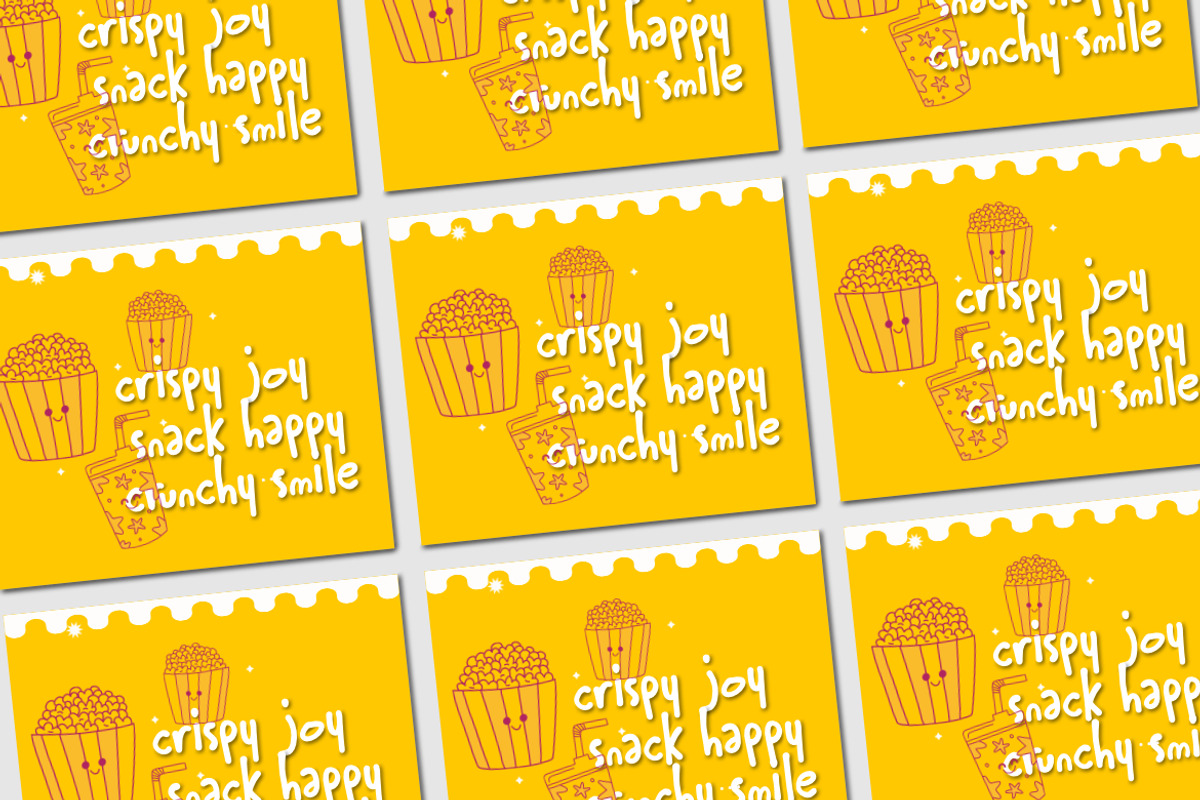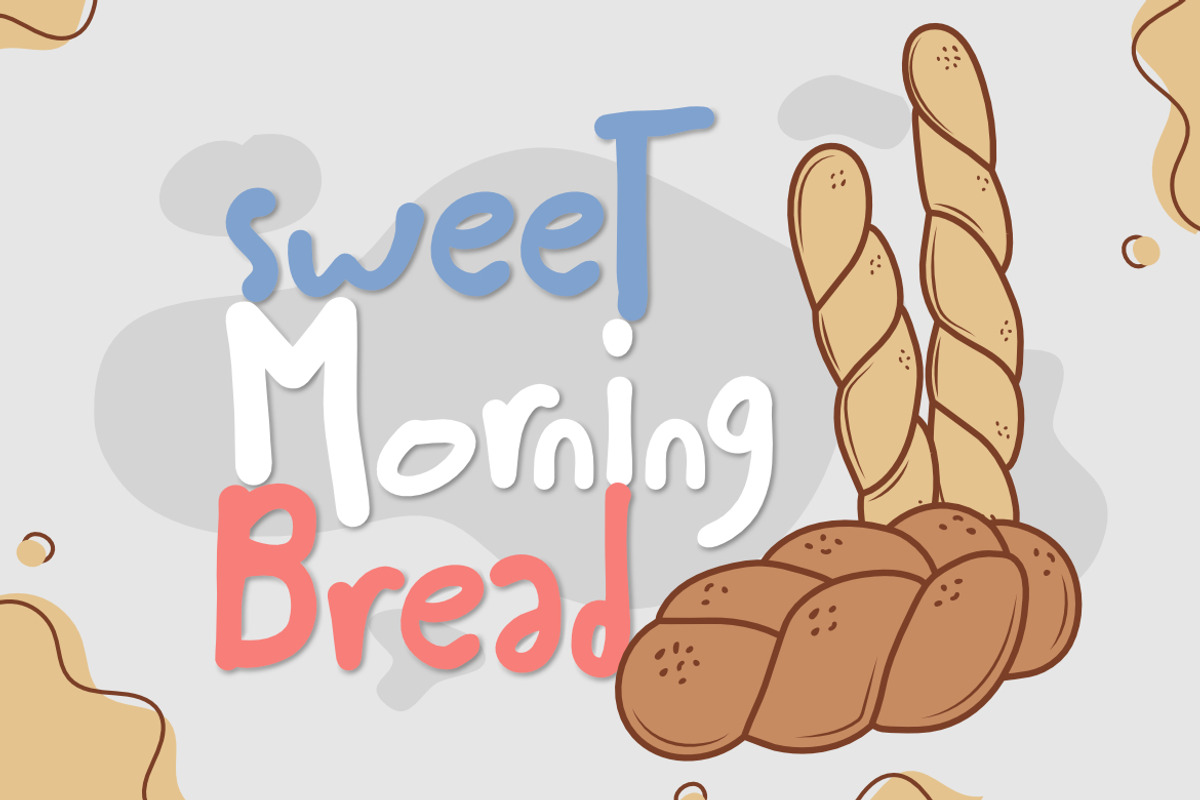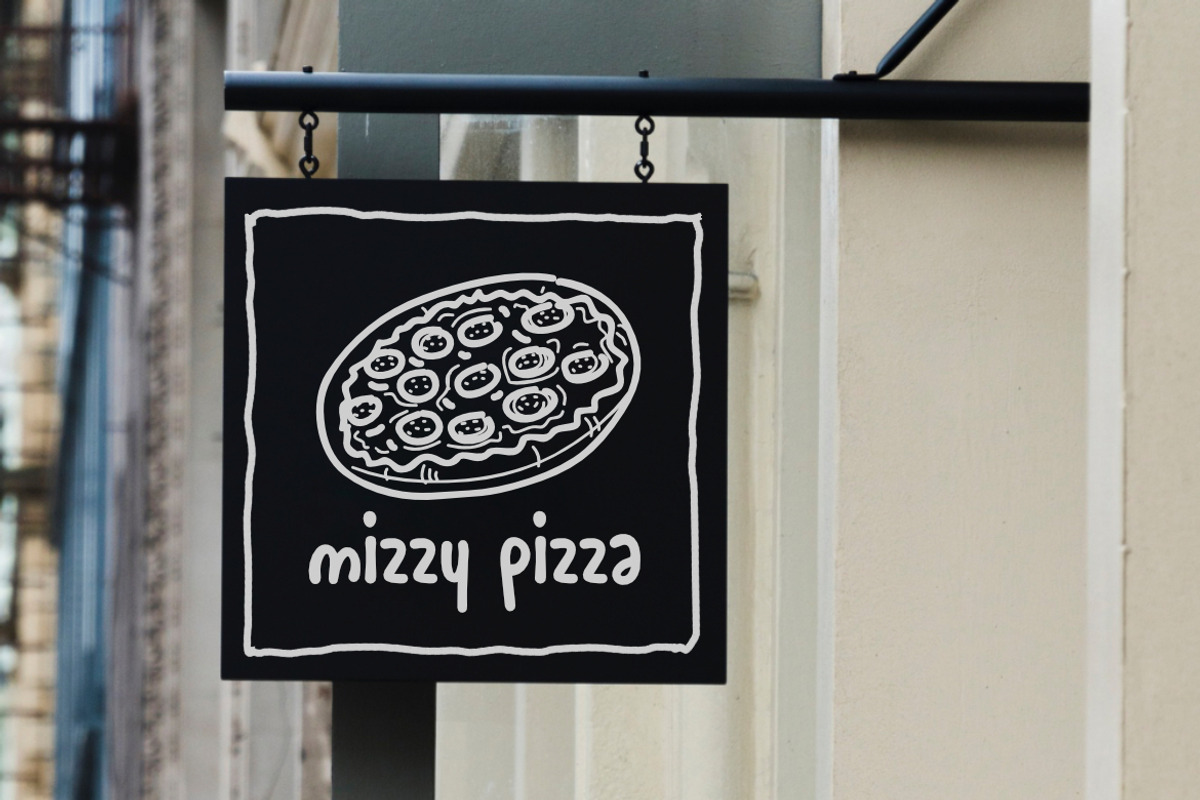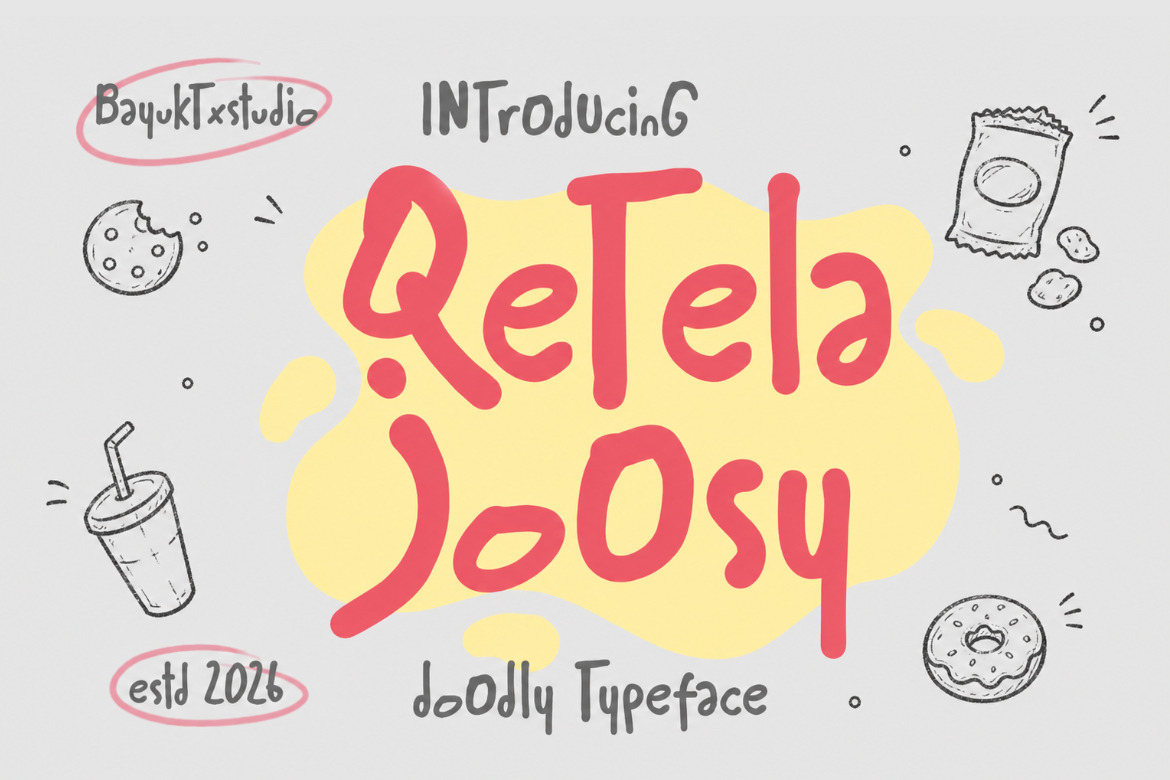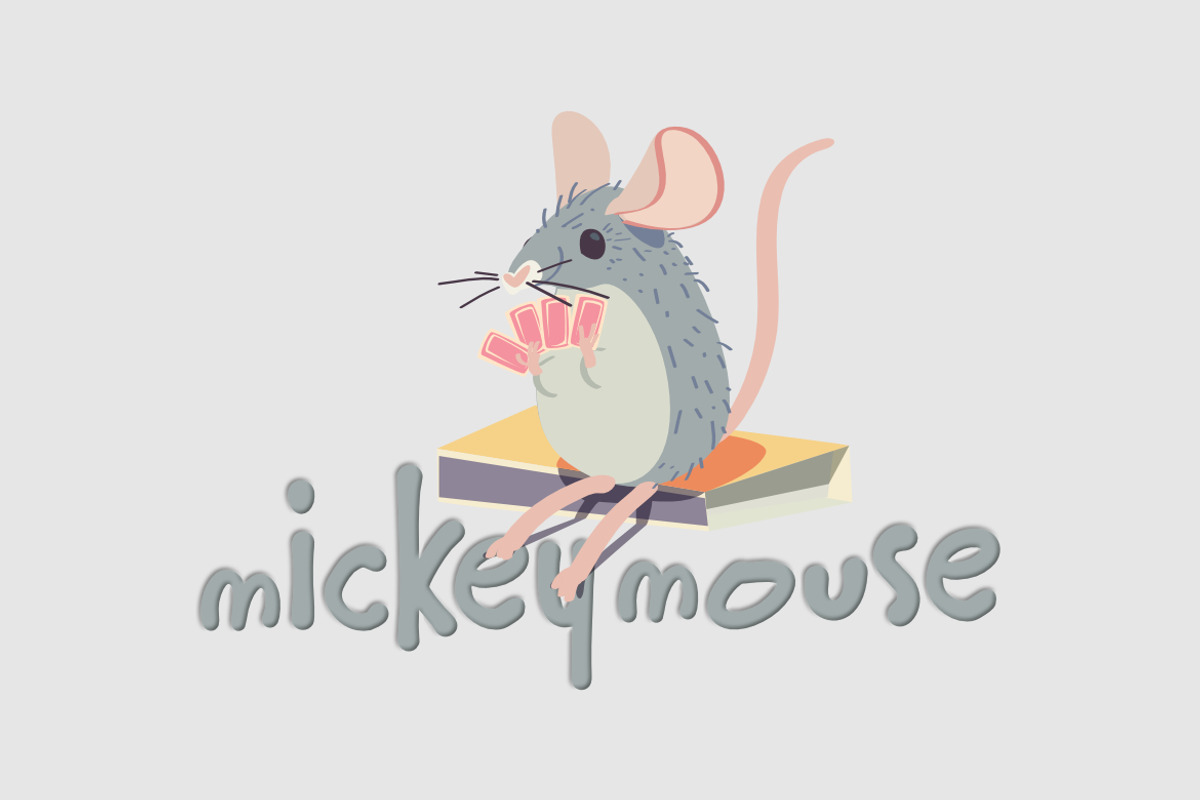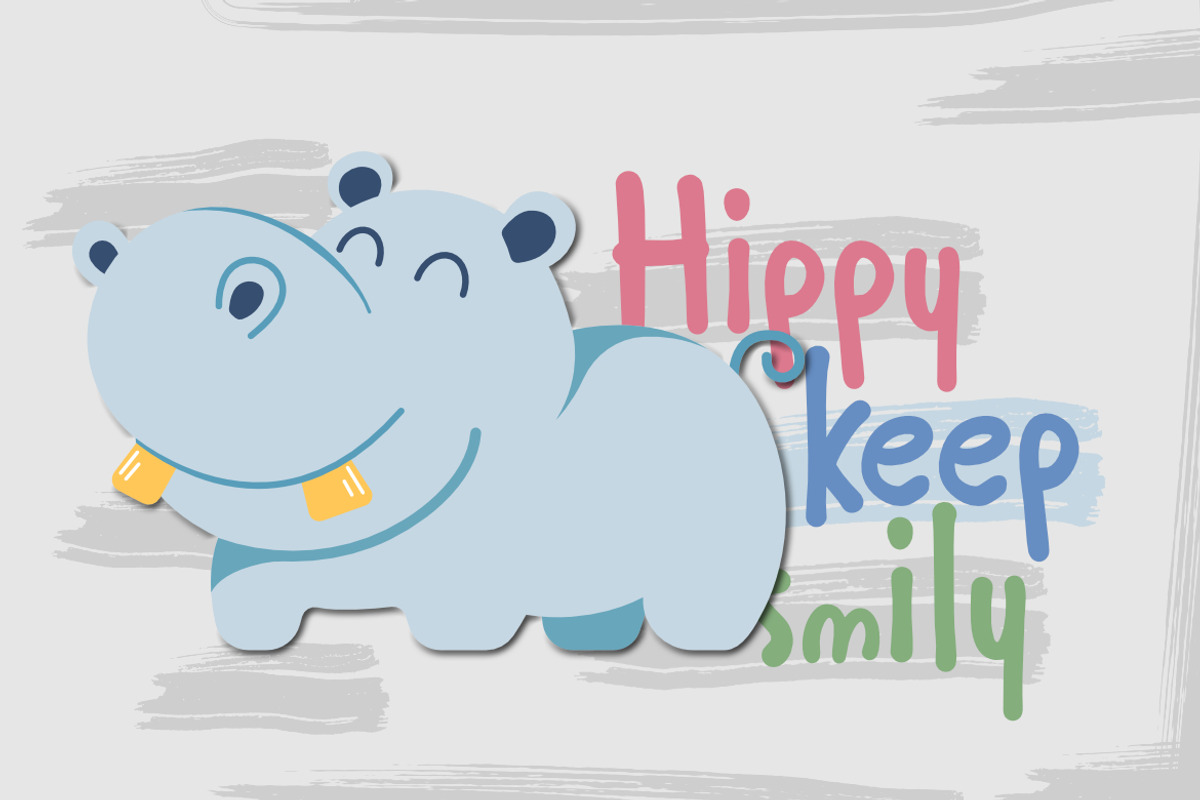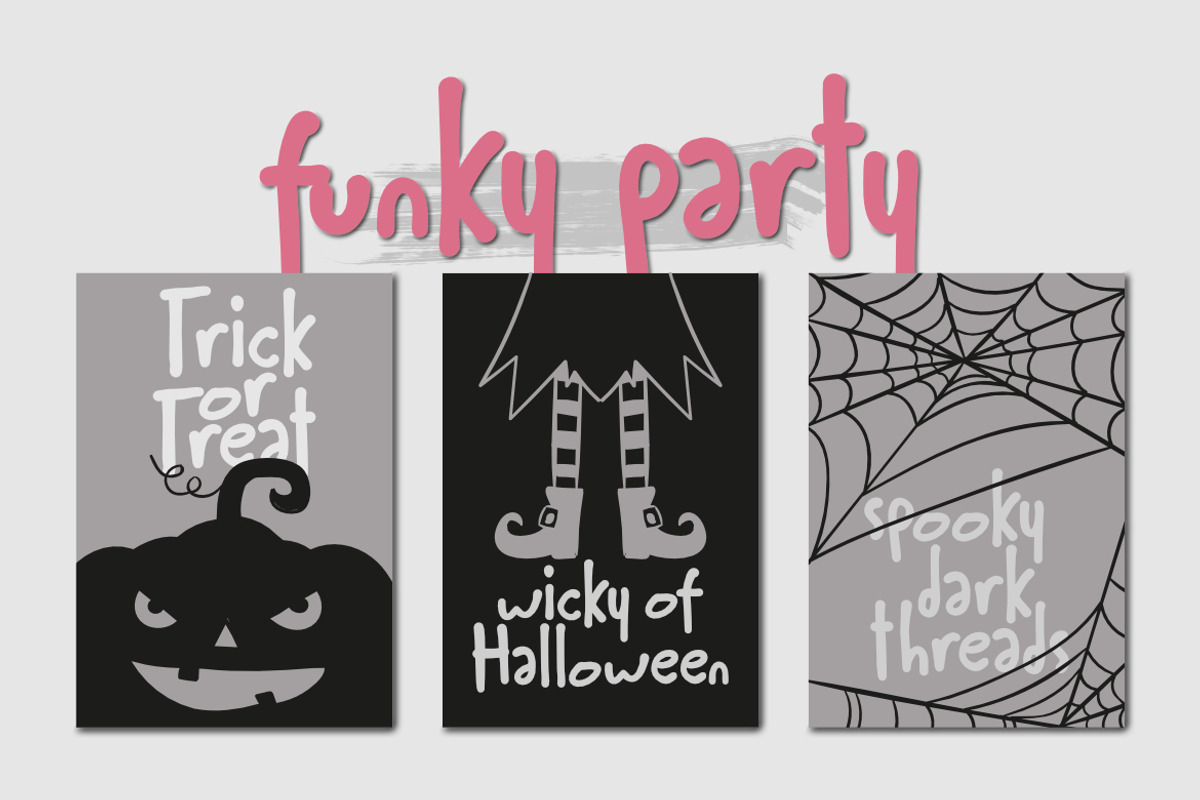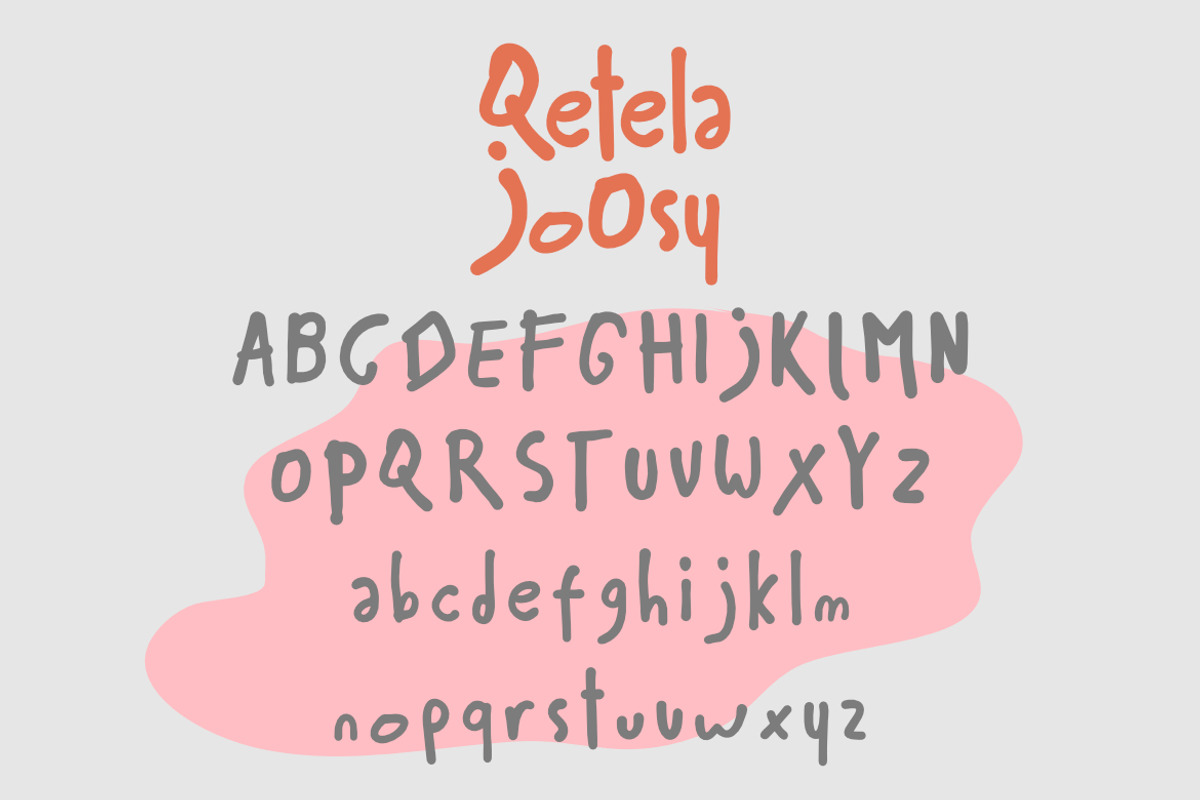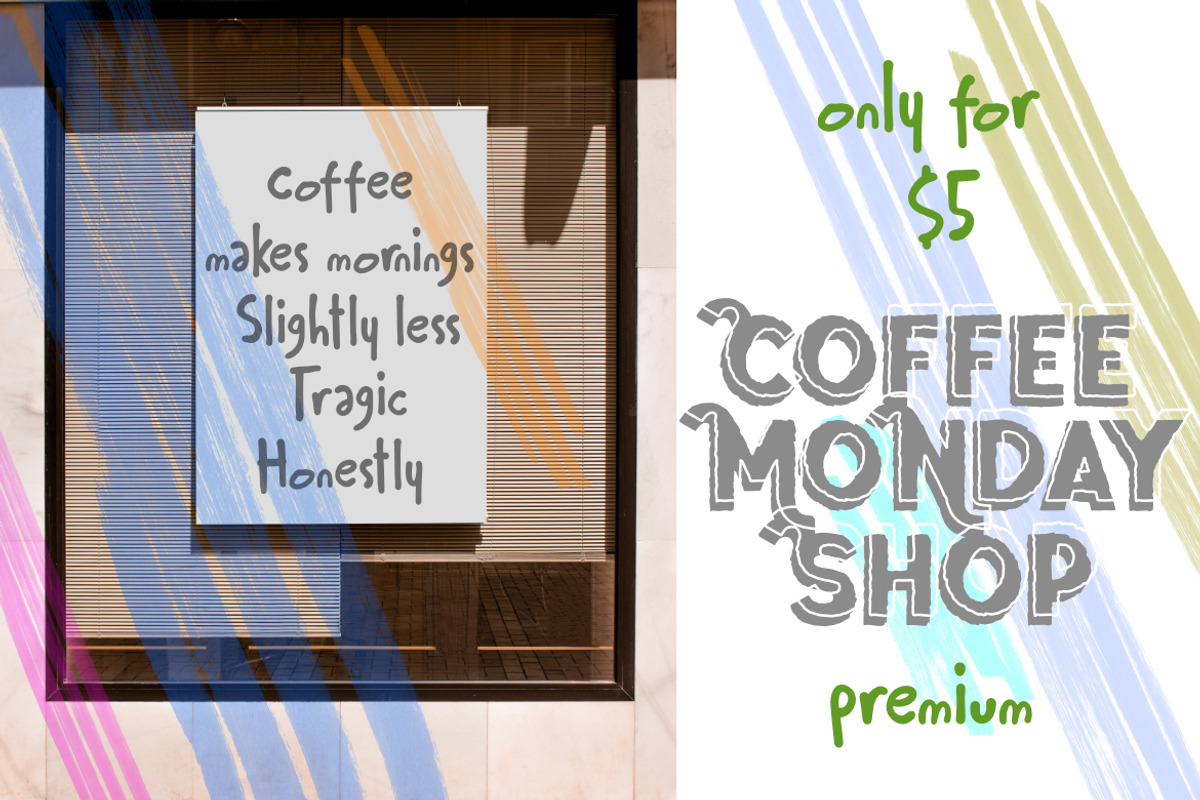
Qetela Joosy – Doodly Typeface Font
Qetela Joosy a Doodly Typeface Font is a playful and cheerful display font inspired by hand-drawn doodles, sweet bakery vibes, and whimsical creative expressions. Featuring soft curves, rounded shapes, and imperfect handwritten strokes, this typeface delivers a fun, friendly, and lighthearted personality.
Designed to capture the joy of creativity and the warmth of homemade treats, Qetela Joosy blends a casual doodle style with a bold, eye-catching presence. The slightly uneven lines and organic forms create an authentic hand-sketched feel, making every letter look lively and full of character.
Its approachable and quirky style makes it perfect for projects that aim to feel cute, fun, and expressive. Whether used for branding or playful visuals, Qetela Joosy brings a delightful and imaginative touch to any design.
\\\* Hand-Drawn Doodly Style
\\\* Soft Rounded Letterforms
\\\* Playful & Organic Strokes
\\\* Kids & Playful Branding
\\\* Bakery & Food Packaging
\\\* Posters & Social Media Graphics
\\\* Cute Merchandise & Stickers
\\\* Invitations & Greeting Cards
\\\* Creative Quotes & Headlines
\\\* Doodle-Themed Designs
With Qetela Joosy a Doodly Typeface Font, your designs will feel sweeter, more expressive, and full of joyful charm — perfect for projects that want to stand out with a fun, cute, and handmade aesthetic.